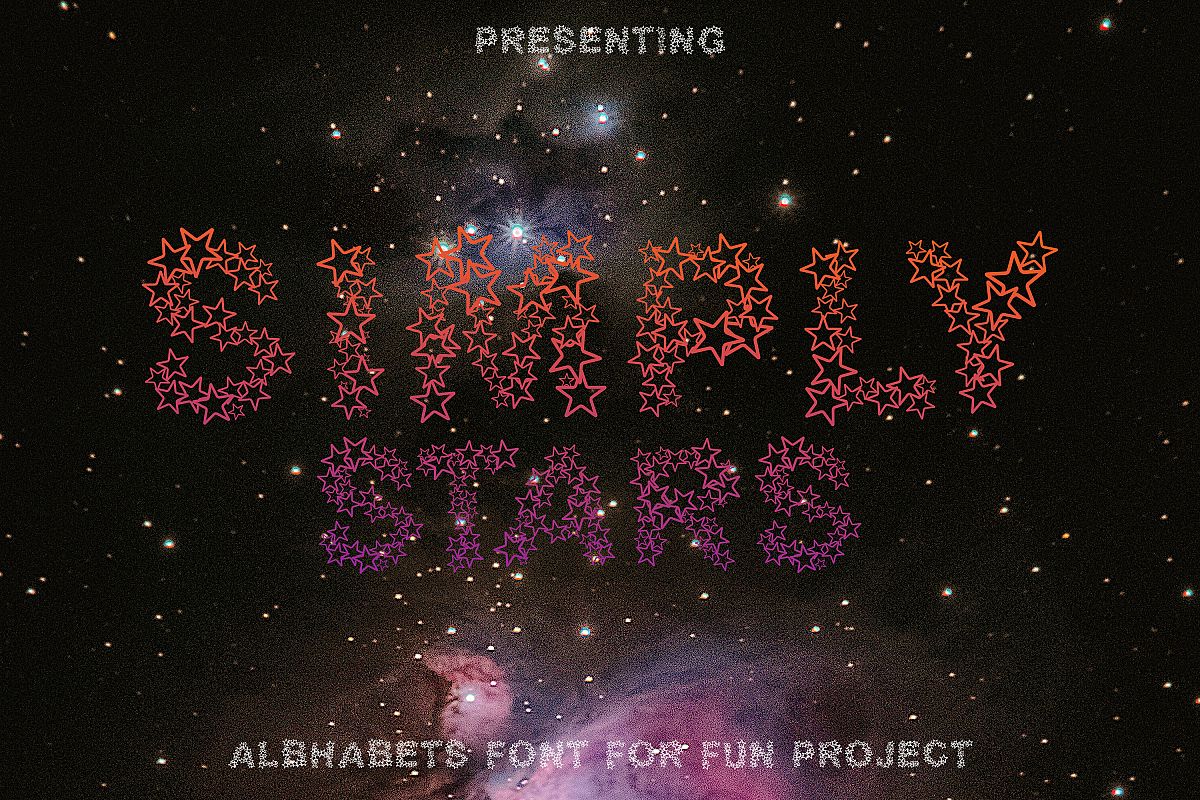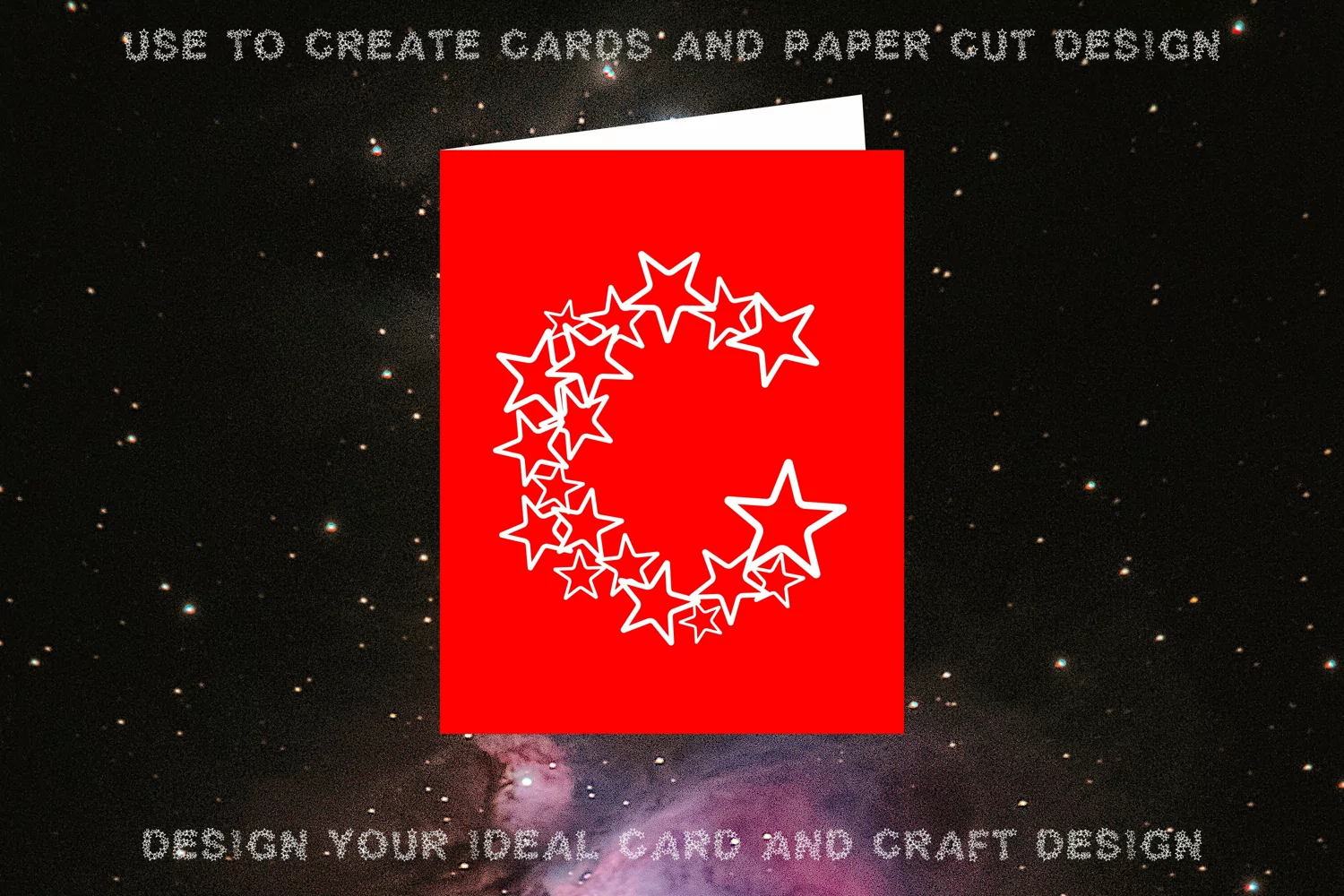
Simply Stars - Alphabets Star Font For Crafters
Presenting Cute font for you. This Special Paper Cut Star Font can be used in tons of projects specially in child and new born projects. You can use it for craft purpose and this will looks great on shirts, printing material and other stuff.
2- UPPER Case only Letters A to Z
3- Super Cute and Creative